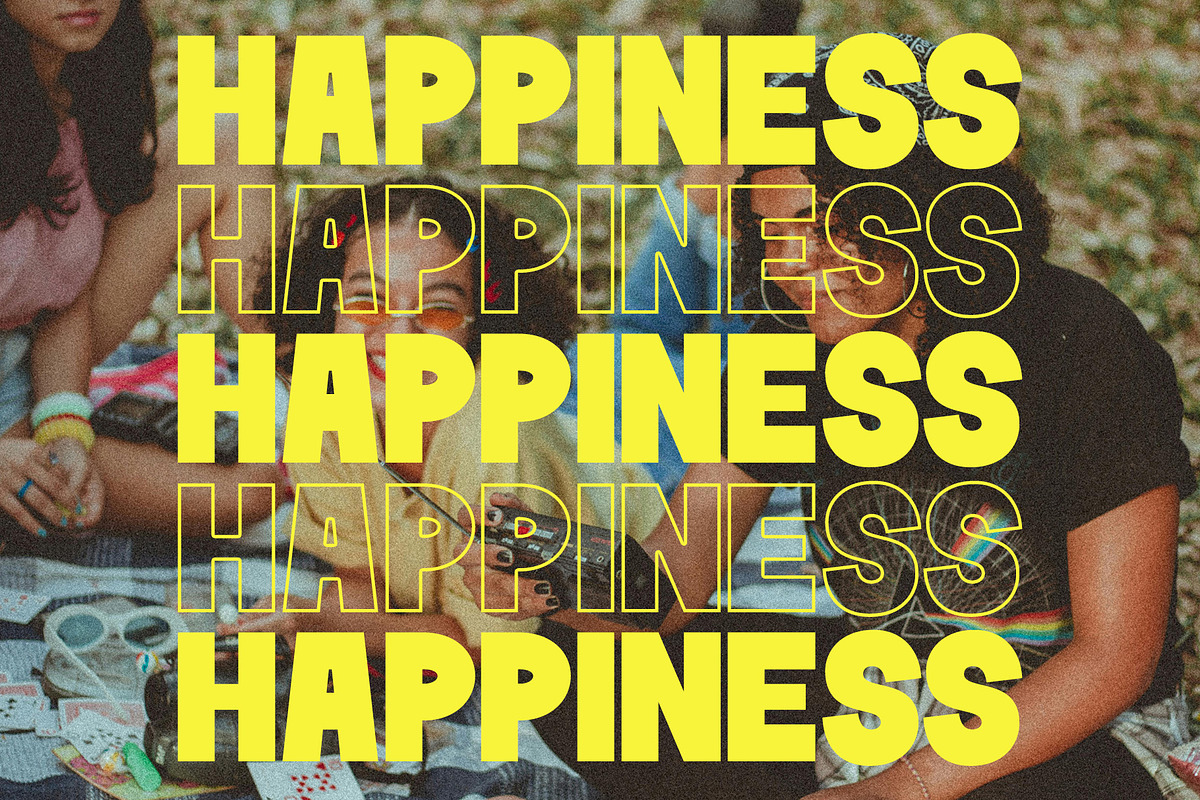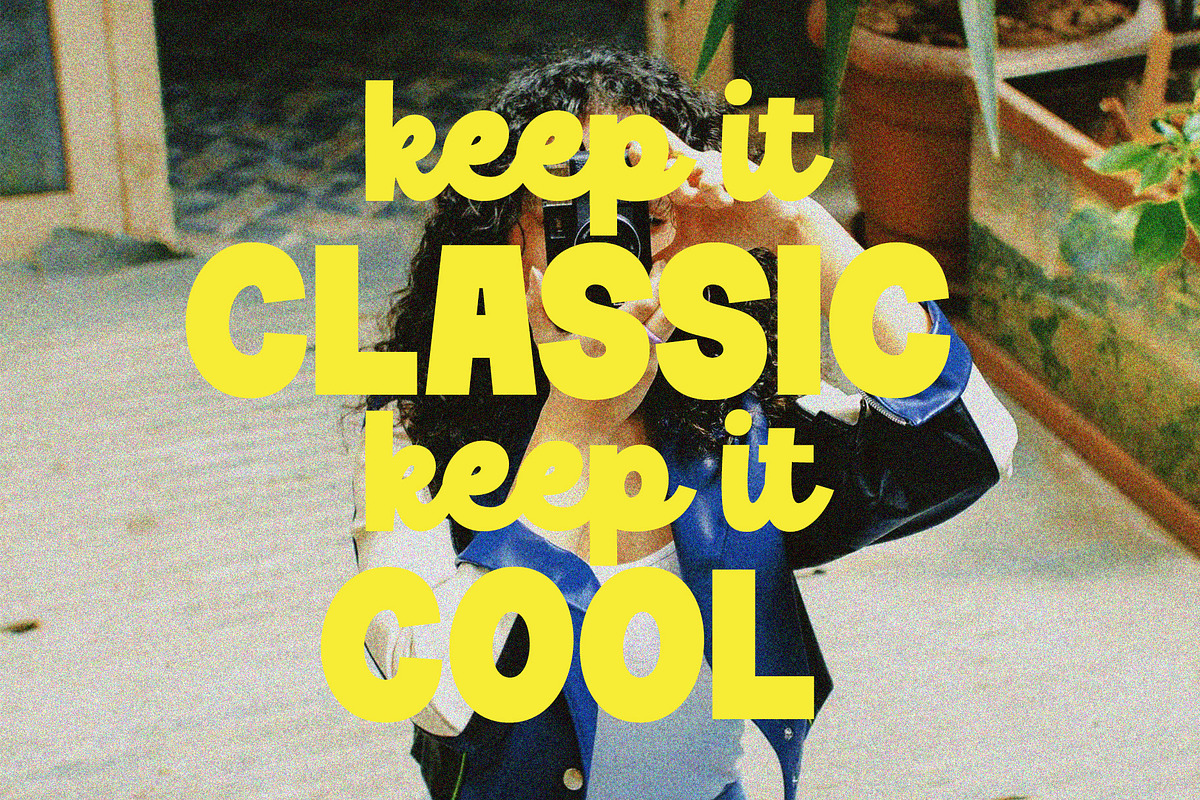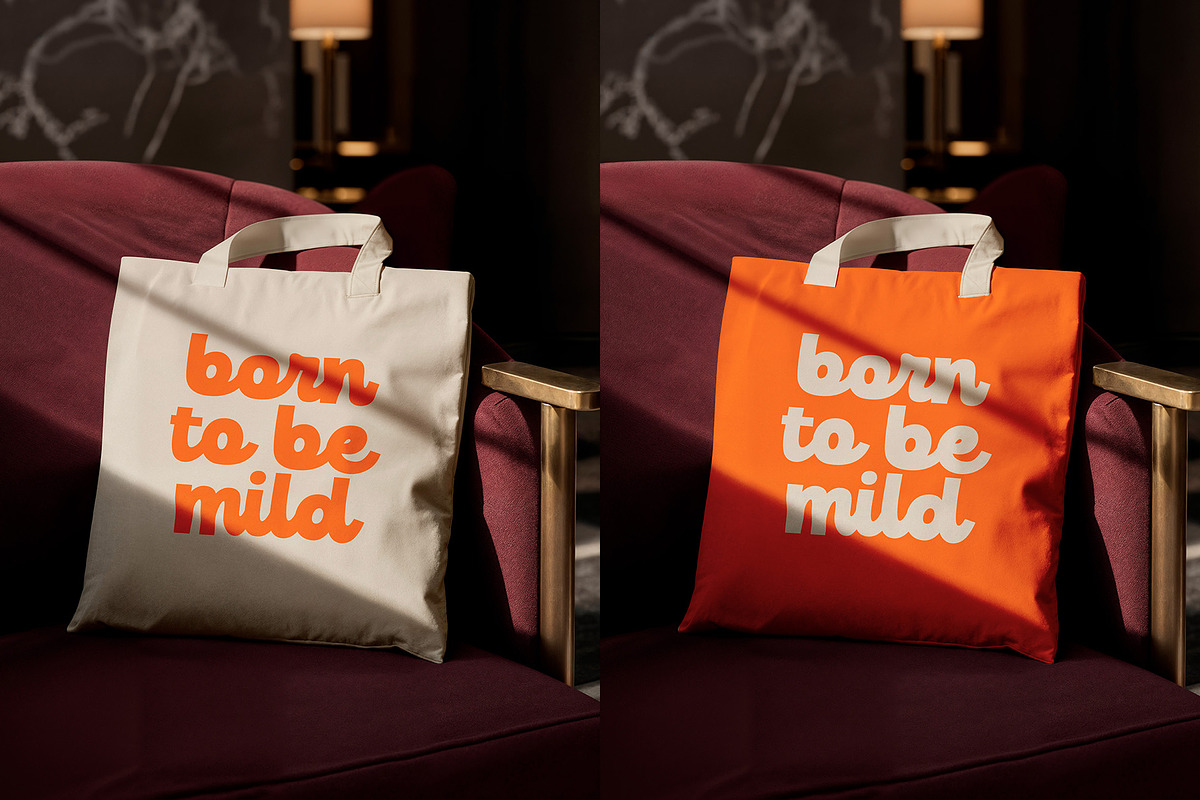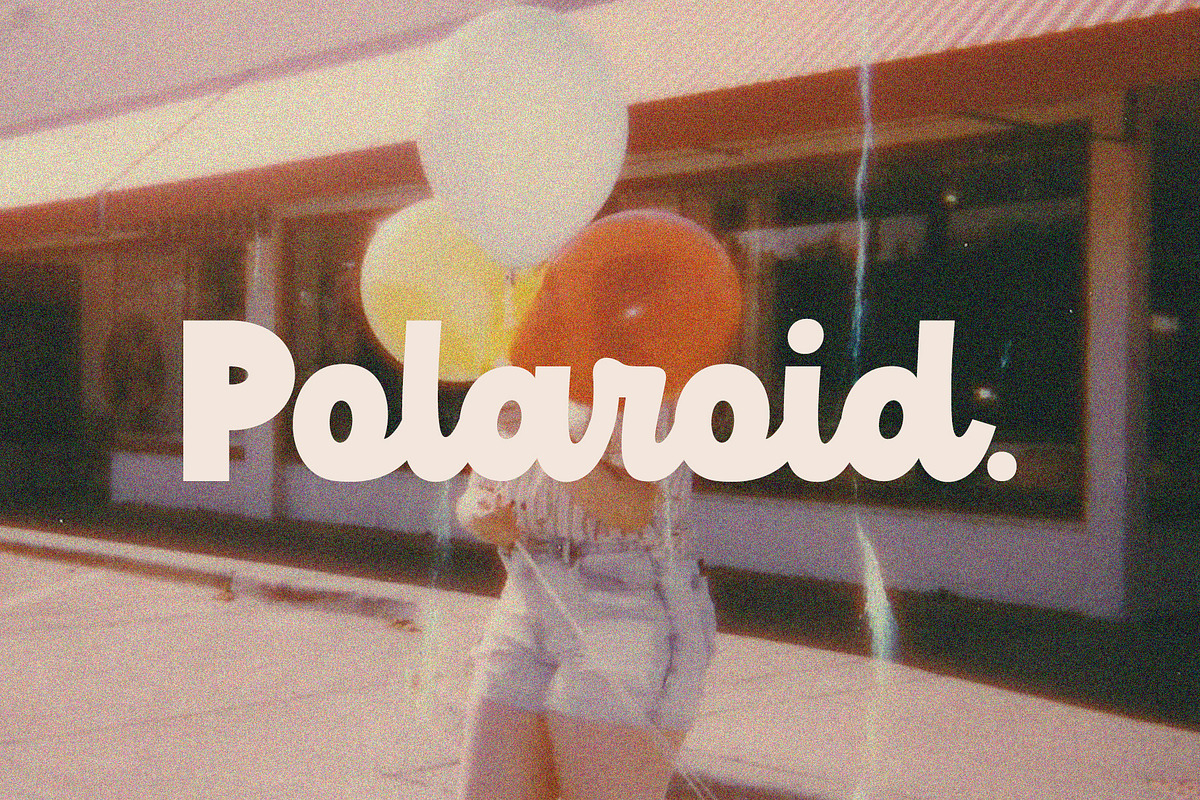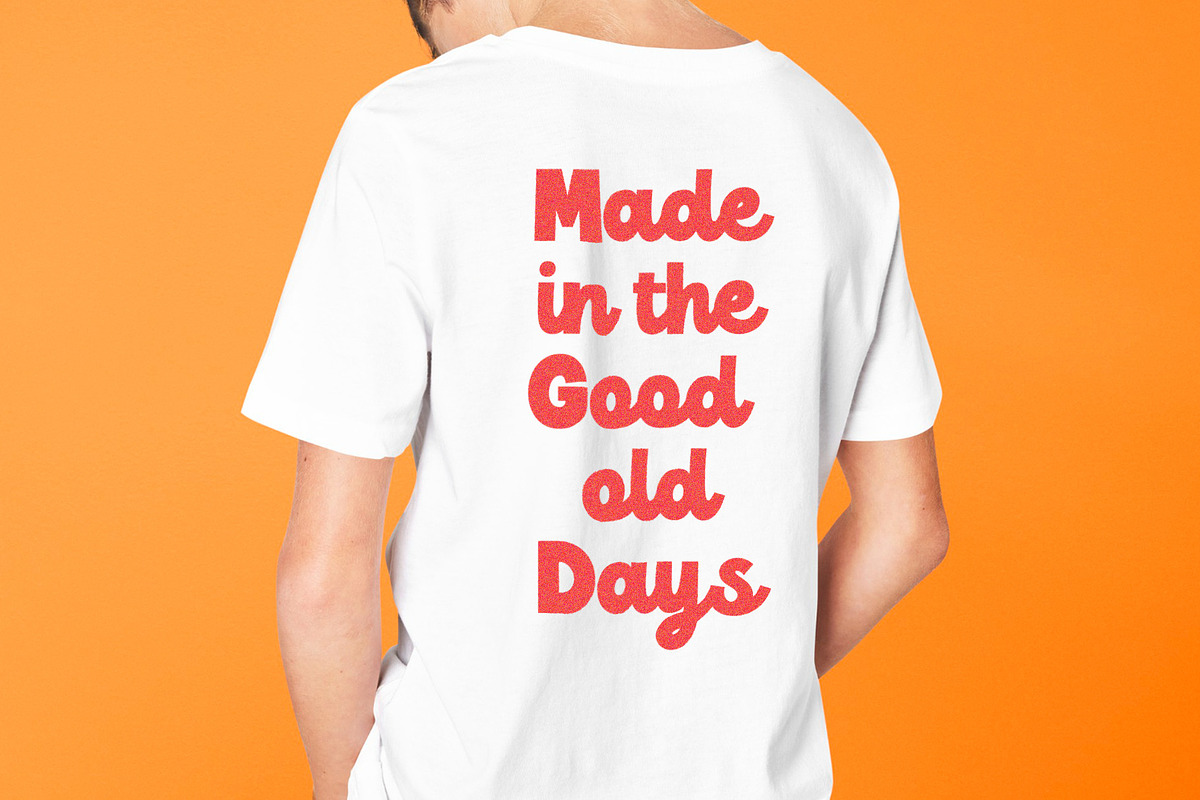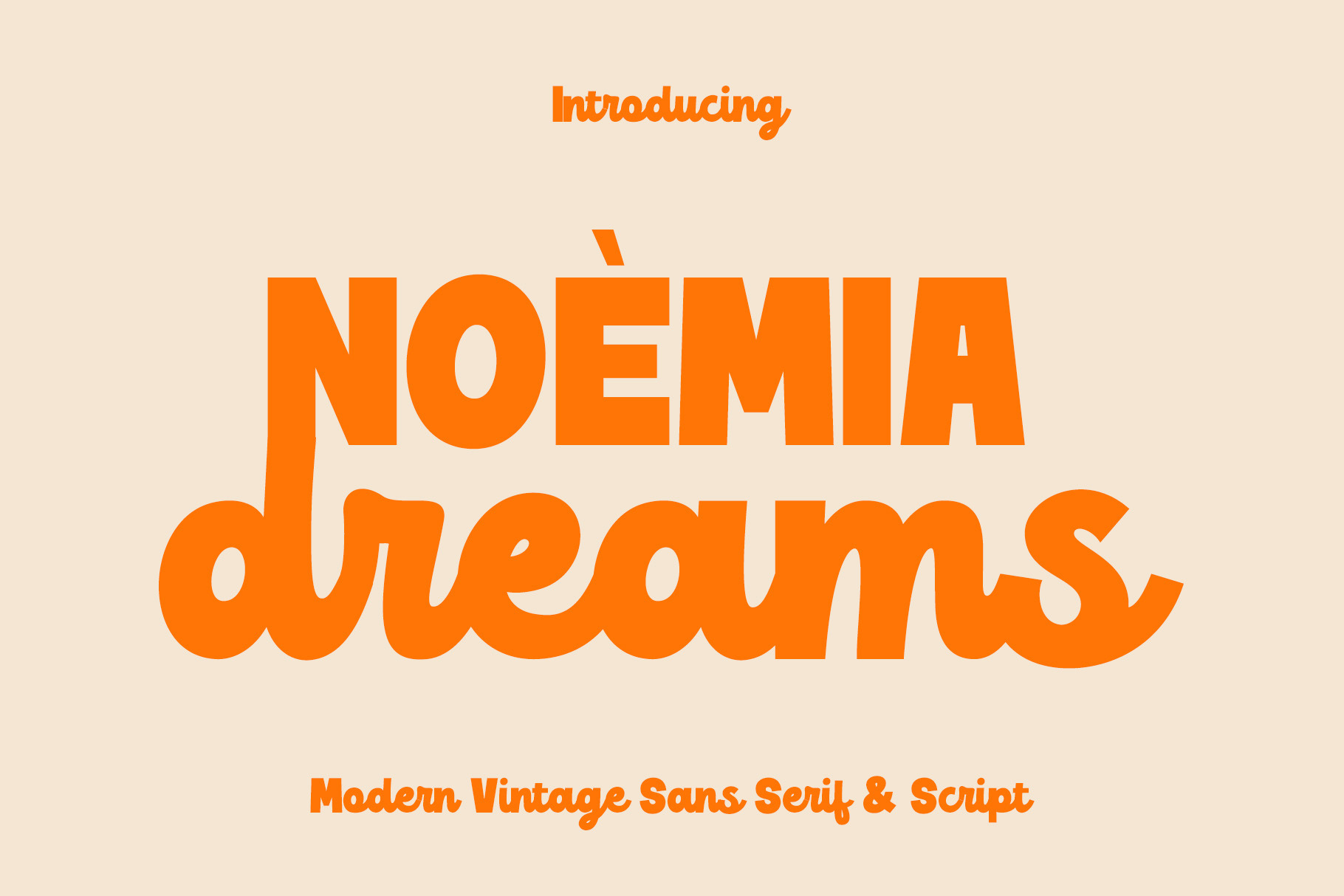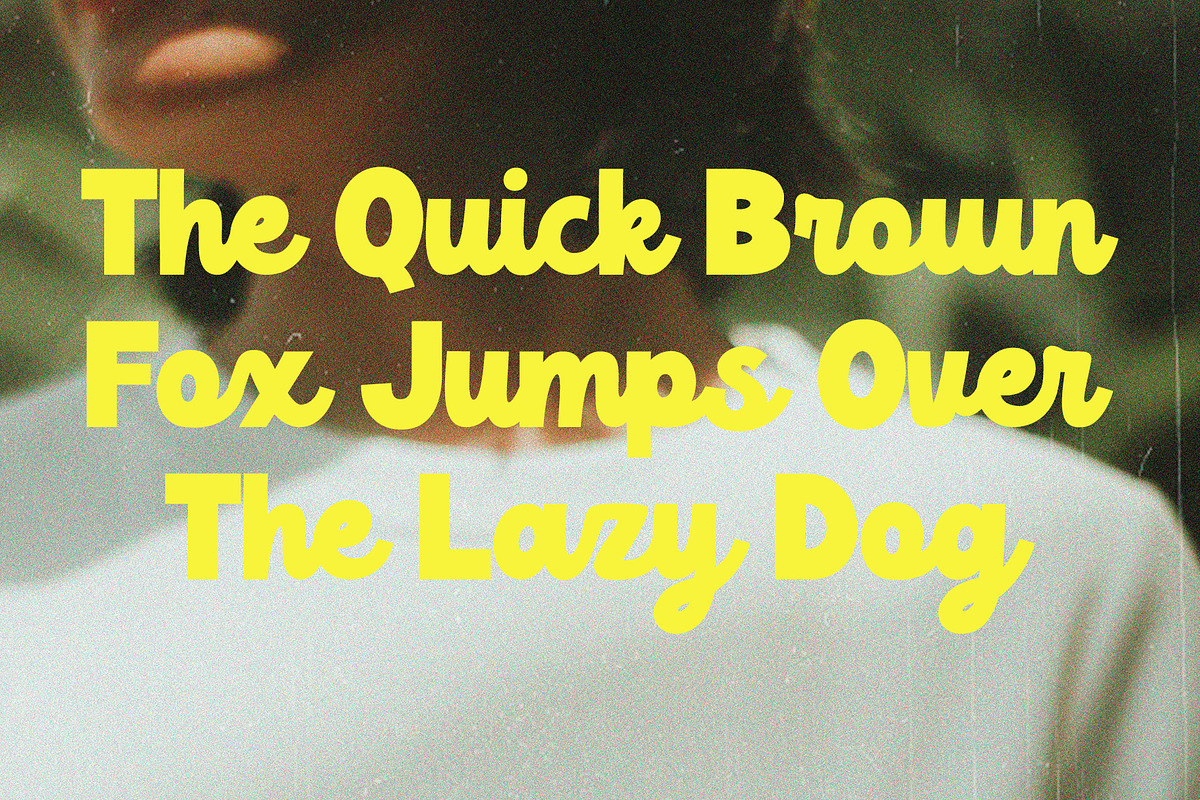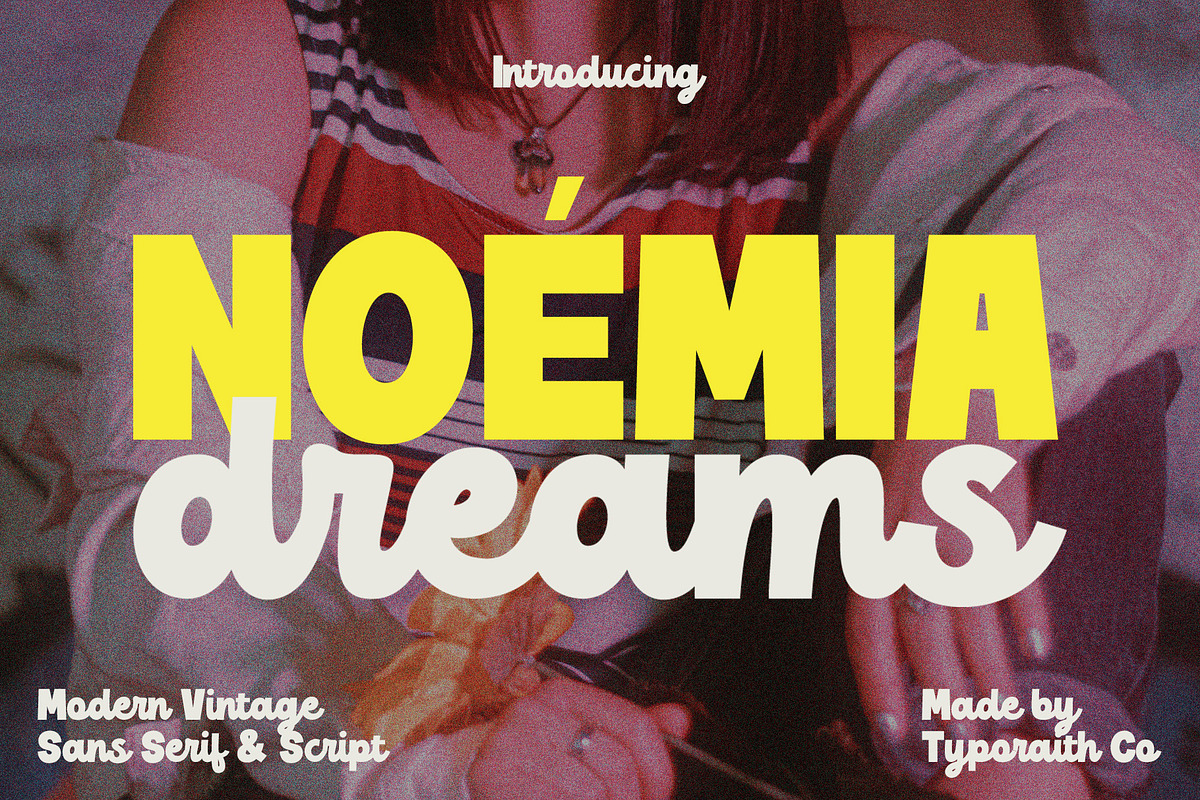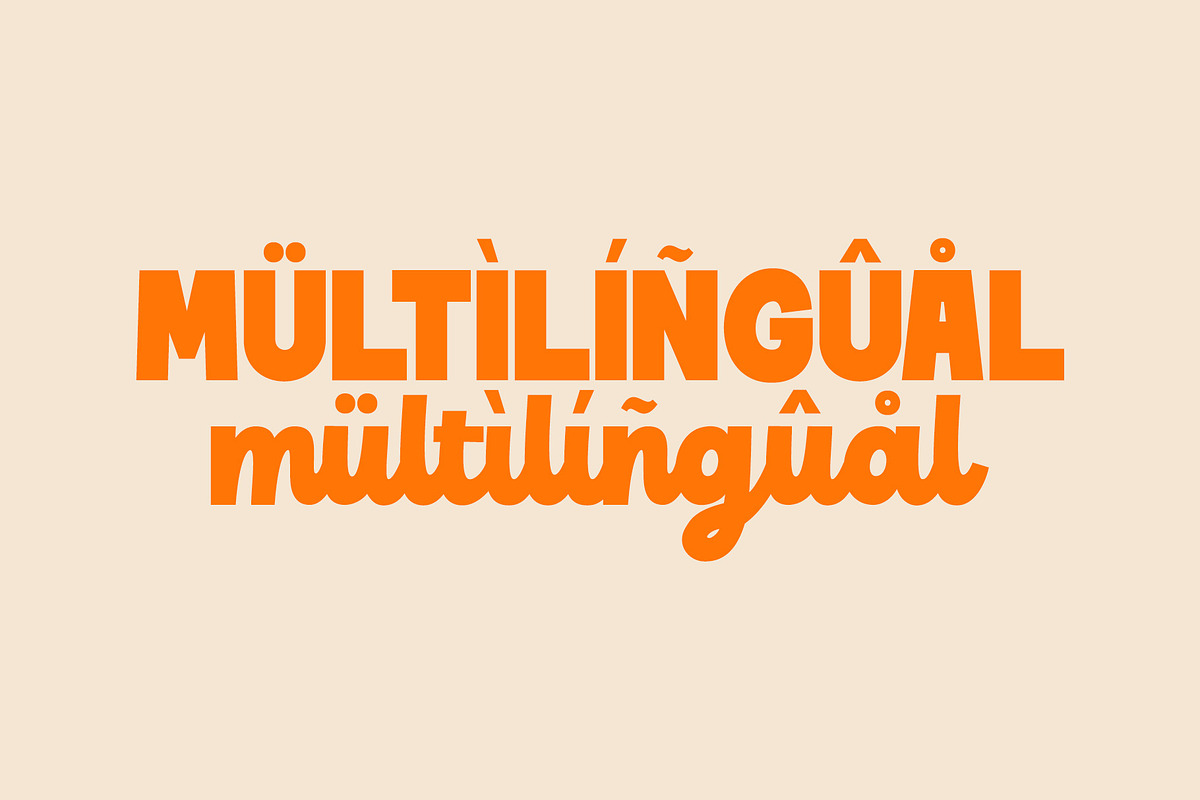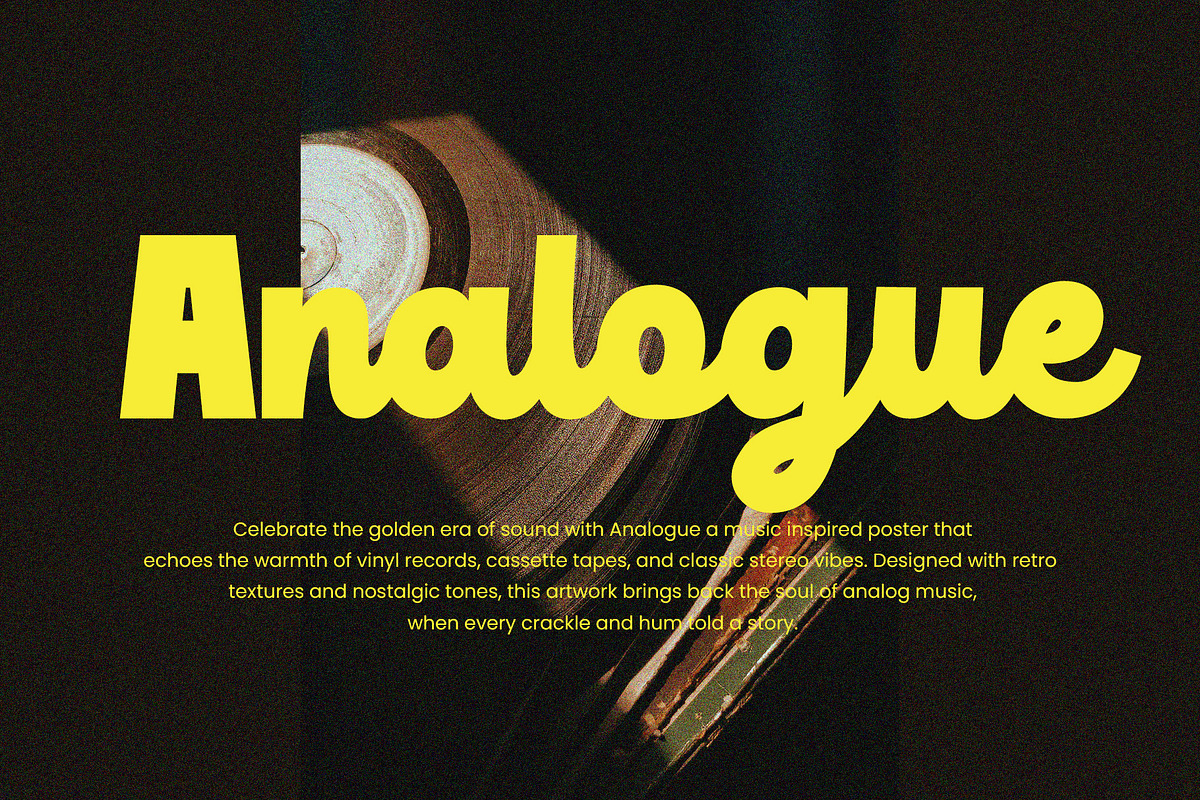
Noemia Dreams | Modern Vintage Font
a charming blend of modern sans serif and vintage script styles, designed to bring warmth, character, and versatility to your creative projects.
With its unique combination of clean sans serif structure and flowing script strokes, Noemia Dreams feels both nostalgic and contemporary. It’s the perfect typeface for branding, logos, packaging, quotes, invitations, and retro inspired designs that need a personal and playful touch.
Create dreamy headlines, standout packaging, or bold visual identities Noemia Dreams is here to elevate your typography with effortless retro elegance and modern flair.